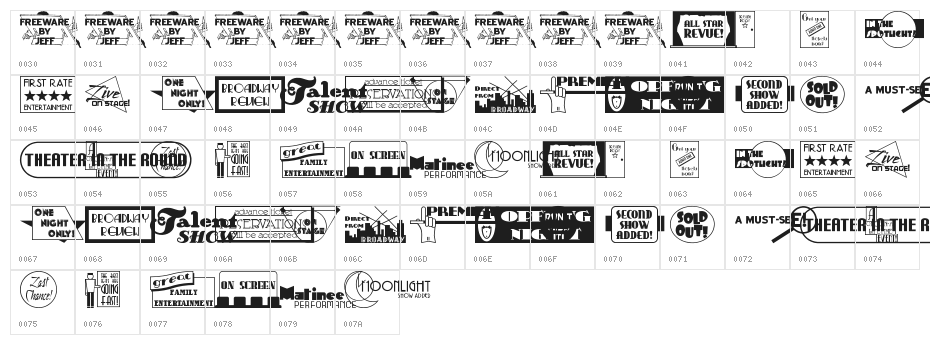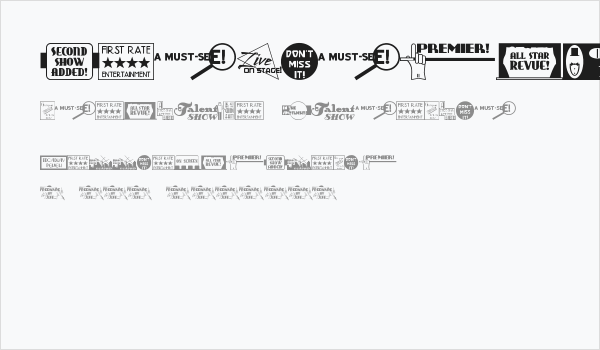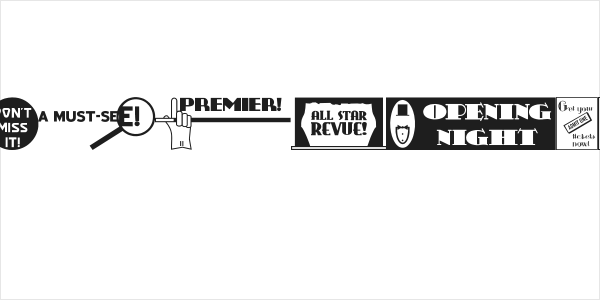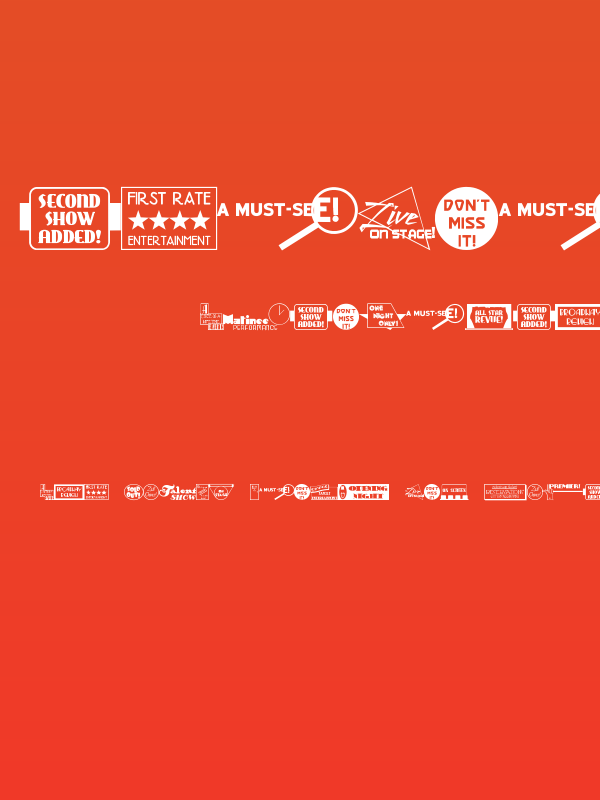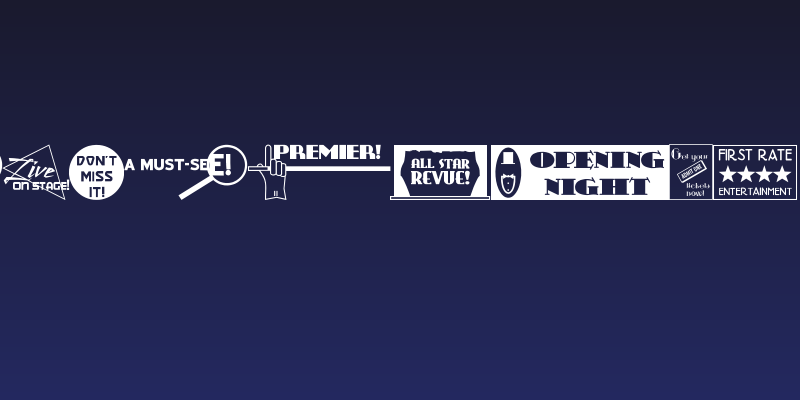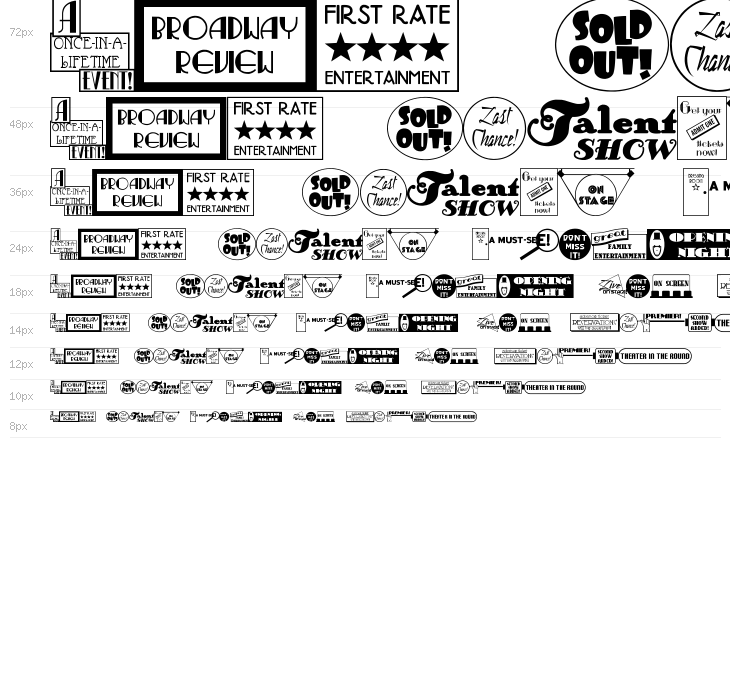
Performance! JL Font
Performance! JL Description
This font is a decorative and playful typeface that combines various elements of vintage theater and entertainment signage. It features bold, eye-catching letters with a mix of serif and sans-serif styles, often enclosed in shapes like stars, circles, and rectangles. The font includes a variety of embellishments, such as stars and arrows, adding to its theatrical flair. Its design is reminiscent of old marquee signs, making it ideal for projects that require a nostalgic or retro aesthetic. The characters are tightly spaced, enhancing the compact and busy look typical of vintage show posters.
| Overall Style | Vintage |
| Proposed Projects | Ideal for theater posters, vintage-themed events, retro signage, and entertainment branding. |